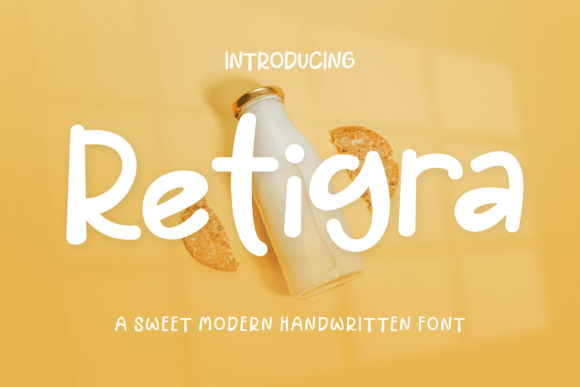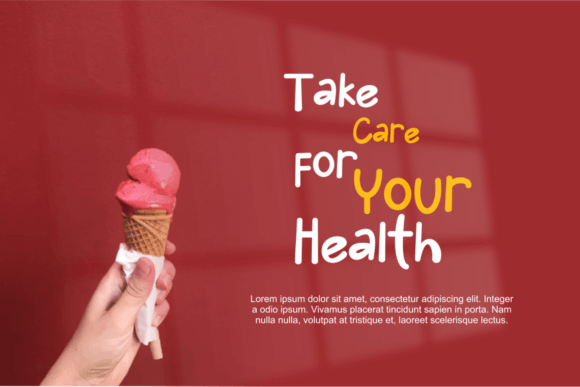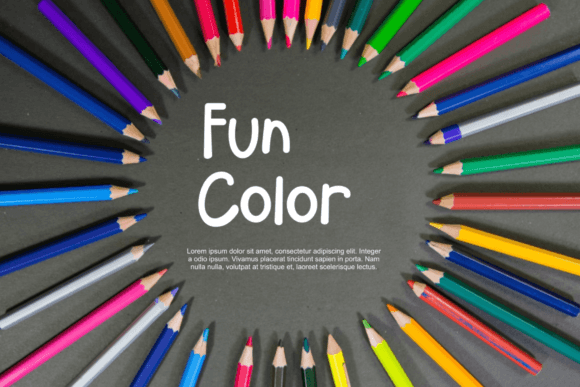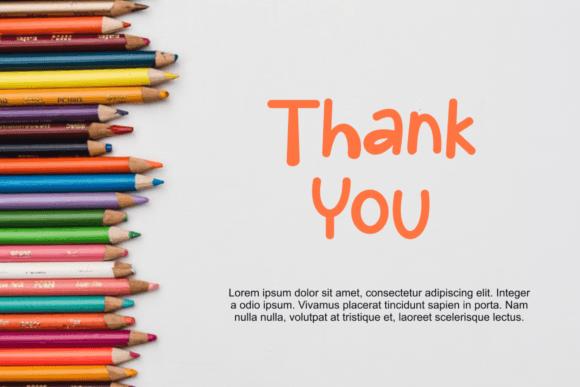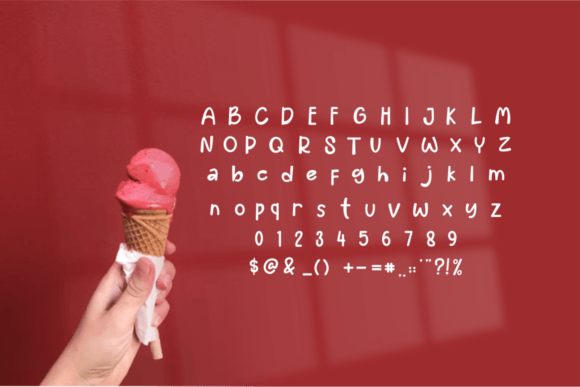
Retigra Font
Introducing Retigra Font
The Retigra Font is a robust and genuine handwritten typeface that possesses a bold character, making it an adaptable choice for diverse branding projects. Whether you are designing logos, crafting t-shirt prints, working on export materials, or engaging in various creative endeavors, Retigra is engineered to make a significant visual impact and excel across a broad spectrum of applications.
Why Choose This Typeface?
• Bold and Authentic: Retigra exudes confidence and authenticity, making it ideal for projects aiming to forge a strong visual identity and leave a memorable impression.
• Versatile Usage: This font provides a visually captivating choice for various creative endeavors, allowing you to infuse your designs with strength and character.
Applications of Retigra
• Logo Design: Use this font to create commanding logos that capture attention and convey trustworthiness.
• T-Shirt Designs: Enhance your t-shirt designs with boldness that commands attention.
• Export Projects: Perfect for adding authenticity and appeal to product labels, packaging, or promotional materials.
The Impact of Using Retigra
This font elevates your designs by making them visually captivating and memorable. It becomes a reliable tool for designers seeking to create projects that stand out with boldness. Its balanced form ensures your designs are both impactful and captivating.
The Value It Brings
This typeface excels in combining contemporary design aesthetics with classic elegance. By choosing Retigra, you ensure your designs are not only visually appealing but also sophisticated and unique.
This font is also ideal for various creative projects beyond traditional uses. It can enhance digital designs with its bold flair, making it suitable for websites, brochures, or mobile interfaces. The Retigra Font adapts well to different screen sizes while maintaining its charm. As design trends evolve, this font remains relevant due to its timeless appeal, balancing style with functionality effectively.